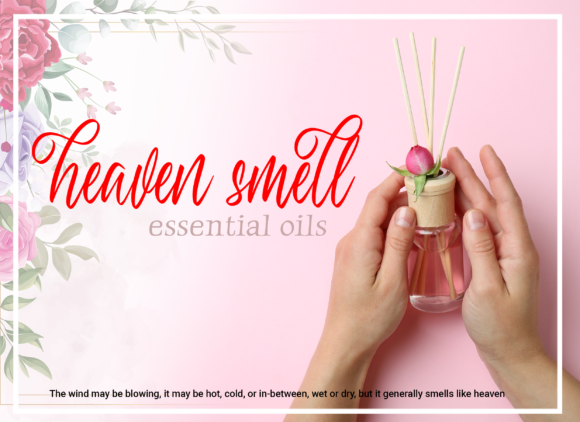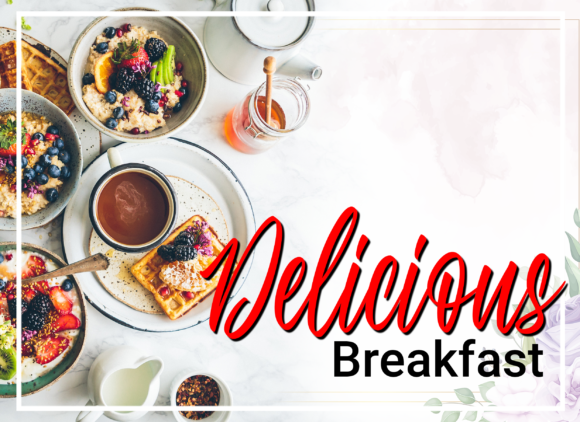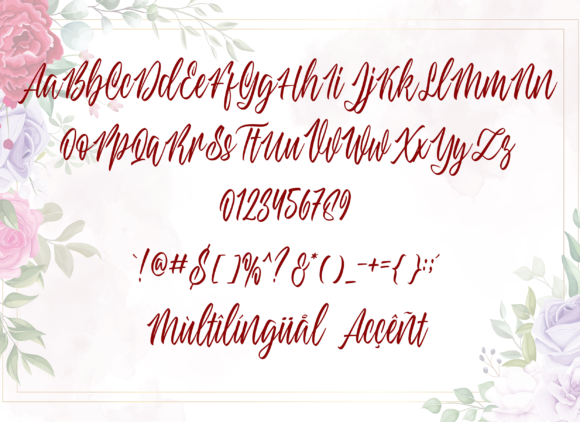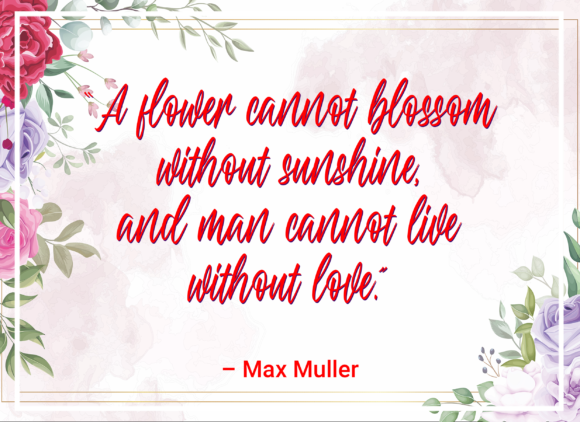
About Borfasya Font
Borfasya is a beautiful and delicate handwritten font with a unique feel and a stunning impact.
It will add a luxury spark to any design project that you wish to create! Add it confidently to your projects, and you will love the results.